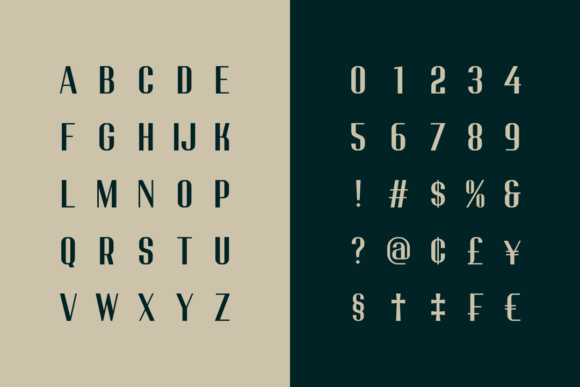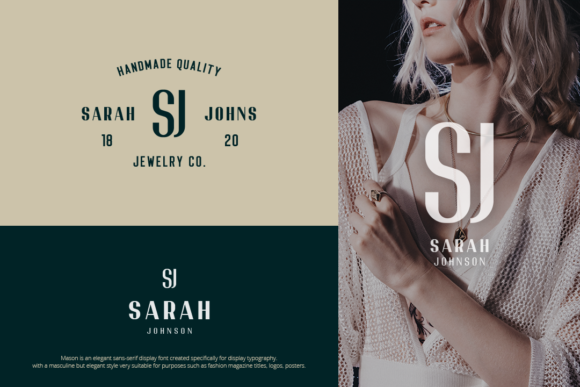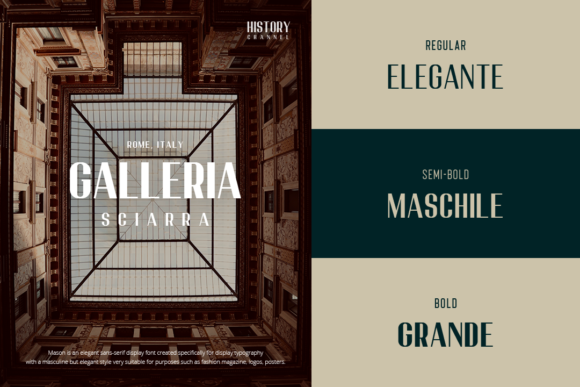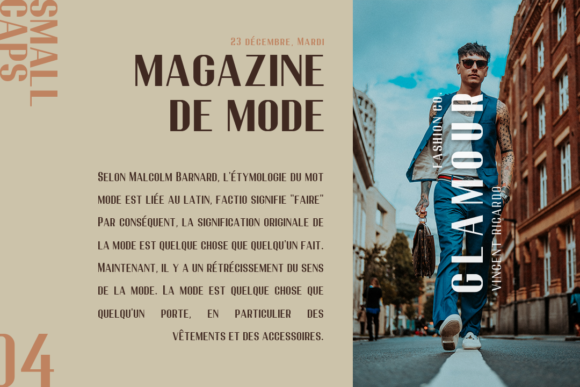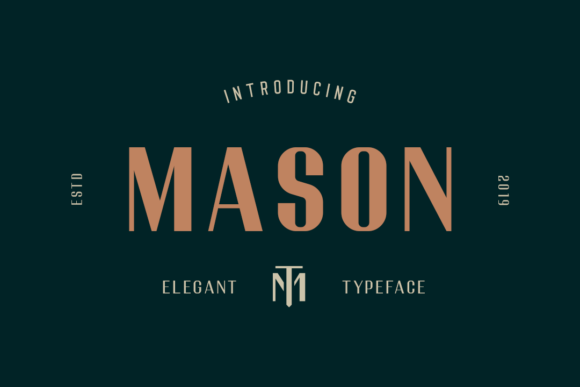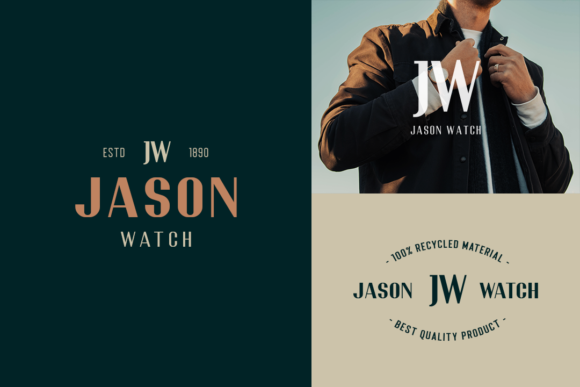
Mason is an elegant sans-serif display font created specifically for display typography. With its timeless look, it works well in fashion magazine titles, logos, posters or website text headers.